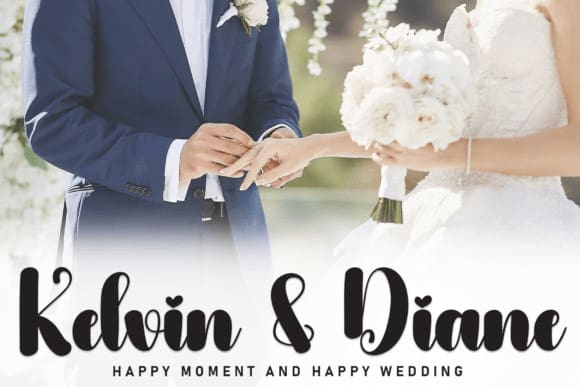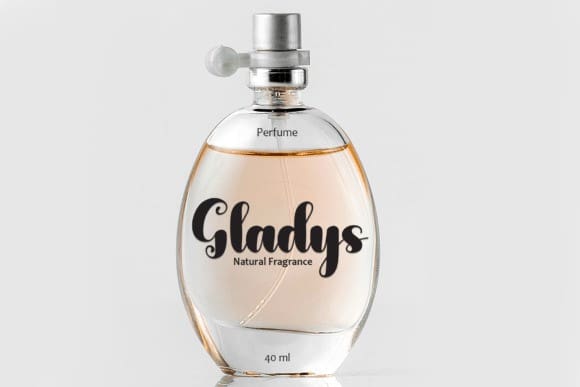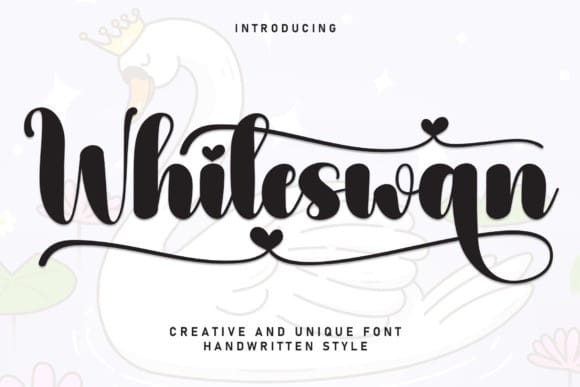
Whiteswan Script Font
Whiteswan Script Font is a sweet and friendly handwritten font. Fresh and casual, this font is ideal for writing wedding invitations, cards, or any other design that might need a lovely touch.